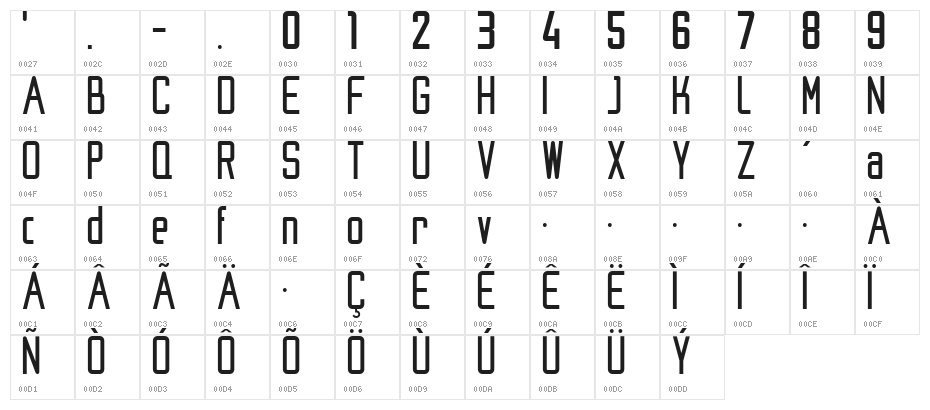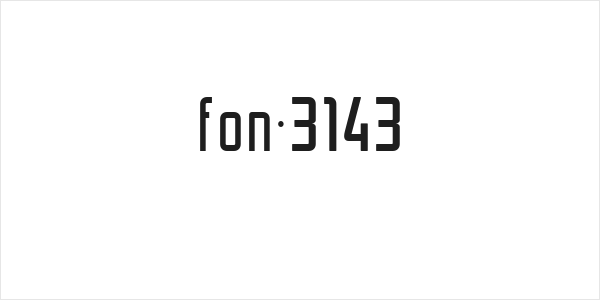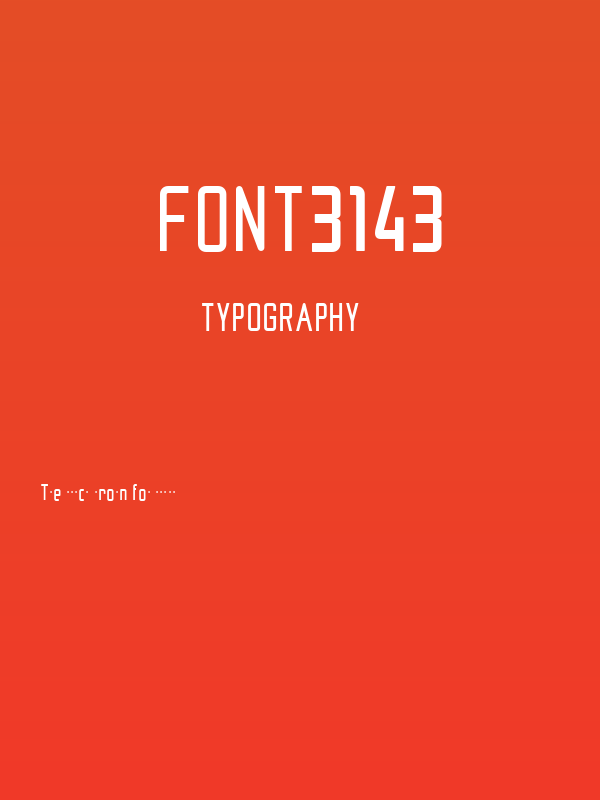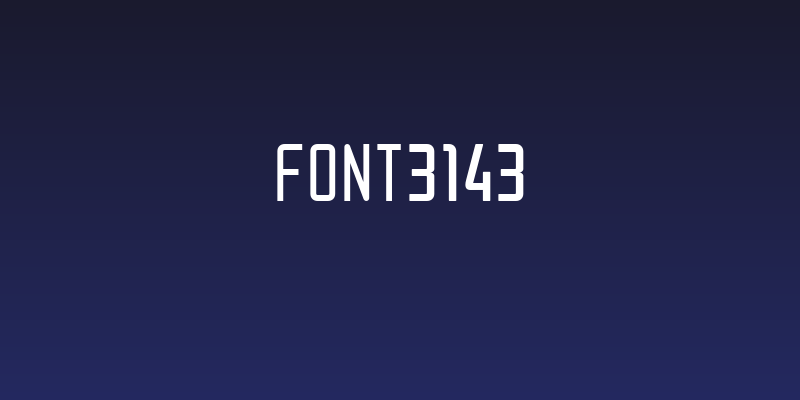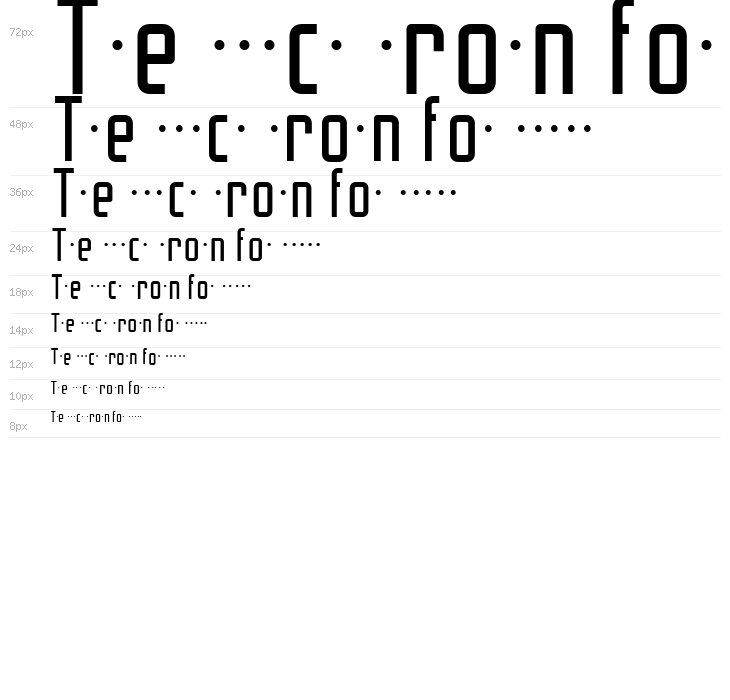
font3143 Font
font3143 Description
This font features a modern and geometric design with clean, straight lines and a uniform stroke width. The characters are tall and narrow, giving it a condensed appearance. The uppercase letters are bold and impactful, while the lowercase letters maintain the same geometric style with slightly rounded edges, adding a touch of softness. The numerals are consistent with the overall design, ensuring readability and uniformity. The special characters are designed to match the font's sleek and contemporary aesthetic, making it suitable for a variety of modern applications.
Proposed ProjectsIdeal for branding, advertising, and editorial design projects that require a modern and clean aesthetic.